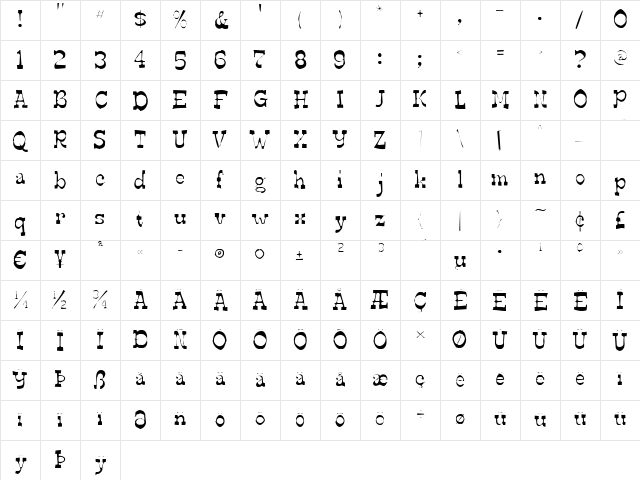
Edmunds Gaunt Regular
| Designer | Ray Larabie / Larabie Fonts |
Design Context for Edmunds Gaunt Typeface
Edmunds Gaunt is a composed and adaptable typeface that performs quietly and consistently across a wide range of design contexts.